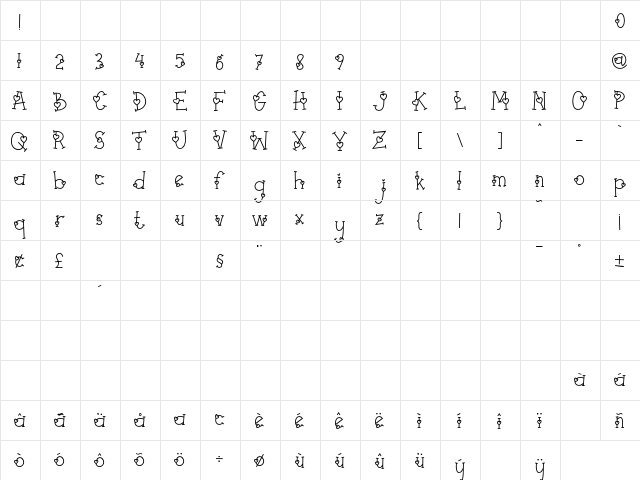
SWEETHEART Regular
| Designer | Girinesia 2020 |
SWEETHEART is a composed and adaptable typeface that performs quietly and consistently across a wide range of design contexts.